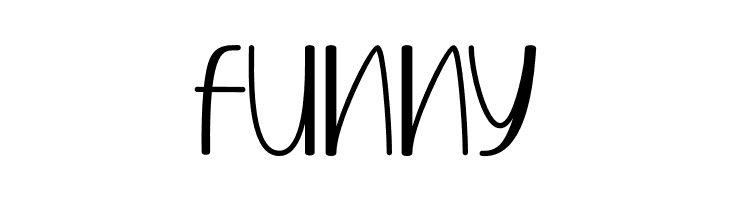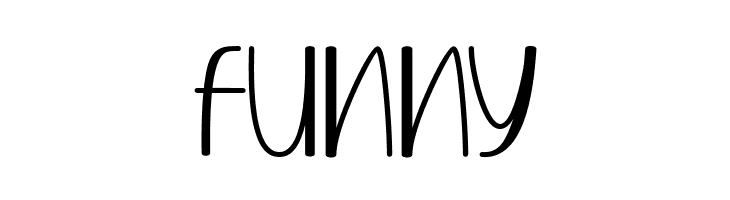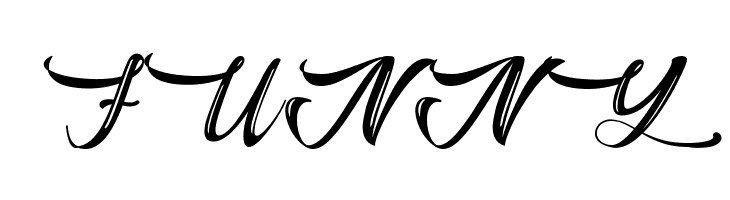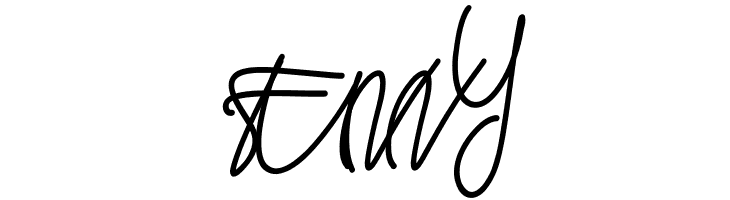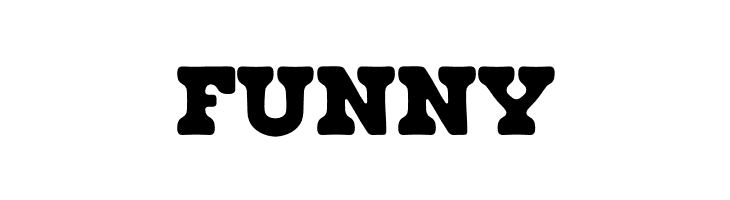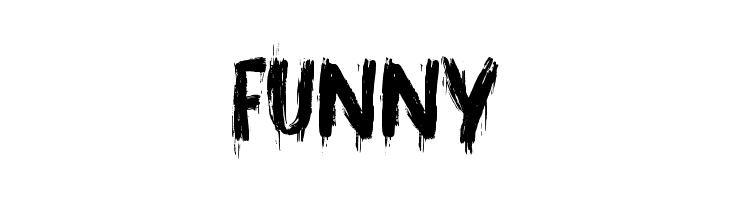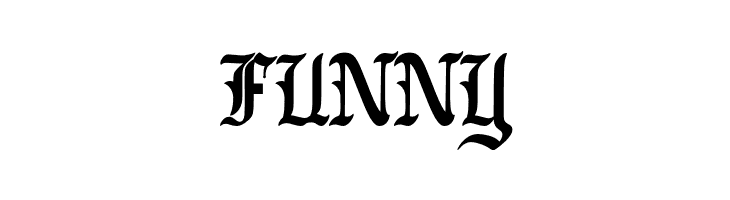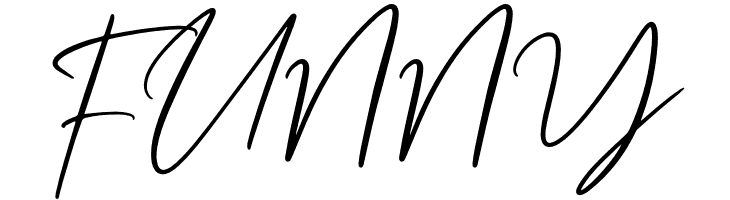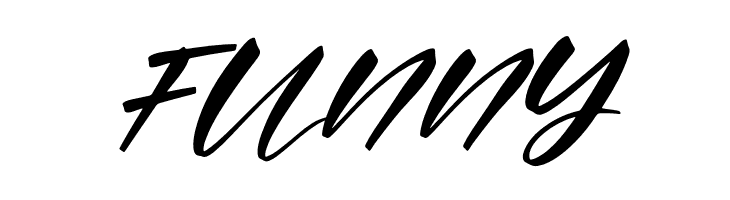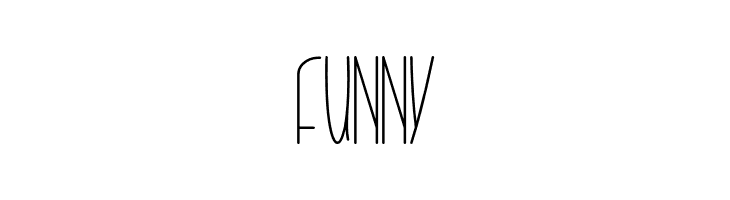
A dynamic, flowing script font with elegant cursive letterforms.
A decorative font featuring Buffalo landmarks and symbols within each character.
An elegant script font with high contrast and fluid curves.
A dynamic, cursive script font with a natural, handwritten style.
A bold, distressed serif font with a grunge texture.
A dynamic and elegant script font with fluid, connected characters.
A dynamic, expressive handwritten font with fluid, interconnected strokes.
A tall, narrow, and modern font with high contrast and minimalistic style.
A graceful, cursive script font with elegant loops and fluid connections.
A modern, elegant script font with a flowing, handwritten style.
A modern, high-contrast font with geometric and decorative elements.
A modern, geometric font with bold, rounded uppercase letters and abstract special characters.
A dramatic, edgy font with sharp, dripping strokes for a haunting effect.
A bold, expressive script font with fluid, interconnected strokes.
A bold, expressive handwritten font with thick, uneven strokes and a playful style.
A bold, distressed font with insect silhouettes and a grunge aesthetic.
A bold, distressed font with a hand-drawn, vintage style.
A lively and elegant script font with flowing, cursive letterforms.
A lively and flowing script font with elegant cursive strokes.
A bold, brush-style font with dynamic, hand-painted strokes.
A playful, bold font with rounded edges and a slightly condensed form.
A dynamic, cursive script font with fluid, interconnected strokes and elegant flourishes.
A bold, rounded, and playful font with a retro-modern style.
A bold, brush-stroke font with a raw, graffiti-like style.
An elegant, flowing script font with ornate uppercase and smooth lowercase letters.
A bold, blackletter font with intricate, angular letterforms and high contrast.
A bold, decorative serif font with intricate swirls and embellishments.
An elegant, flowing script font with intricate loops and swirls.
A bold, modern font with a sleek and sophisticated style.
A playful, handwritten font with exaggerated curves and a whimsical style.
A playful, hand-drawn style font with rounded, irregular letterforms.
A playful, handwritten font with a whimsical and artistic style.